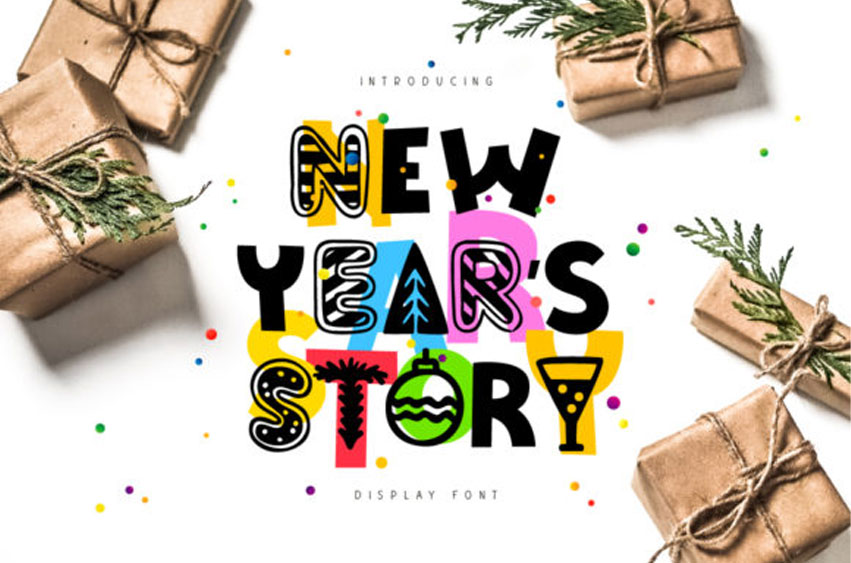
New Year's Story Font
New Year’s Story Font
New Year’s Story Font is a fun Christmas font. It comes with usual uppercase characters and New year’s lowercase symbols.
It’s ideal for designing all sorts of Christmas stuff, such as: cards, posters, t-shirts, product packaging, etc.